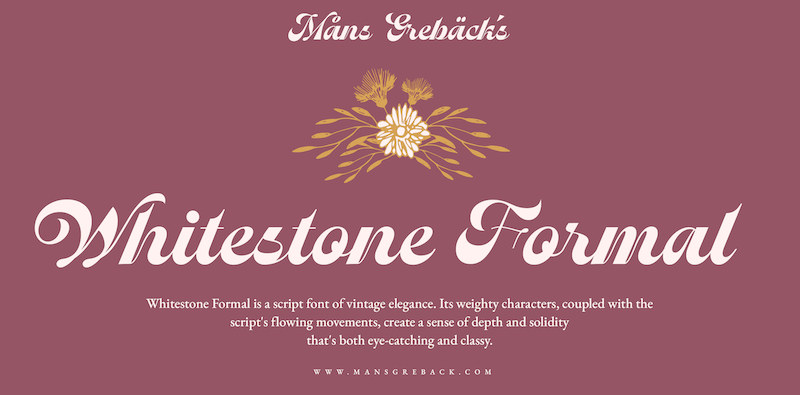
Font name: | Whitestone Formal |
NOTE: This font is for PERSONAL USE ONLY! To purchase a commercial license, visit: http://mn.sg/whitestone-formal Whitestone Formal is a script font of vintage elegance. Its weighty characters create a sense of depth and solidity that's both eye-catching and classy. For questions, please visit www.mansgreback.com/faq |